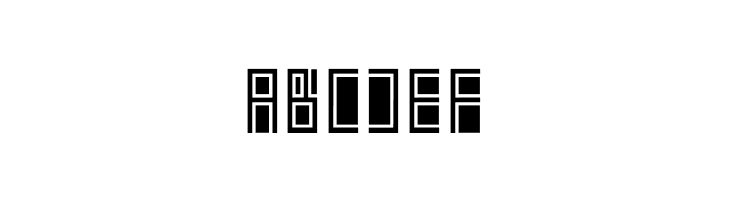
HollandischClosed-Regular Font
- Font: HollandischClosed-Regular
A bold, stencil-style font with sharp edges and uniform thickness.
( Fonts by Abstract Type Design - Patrick Durr )